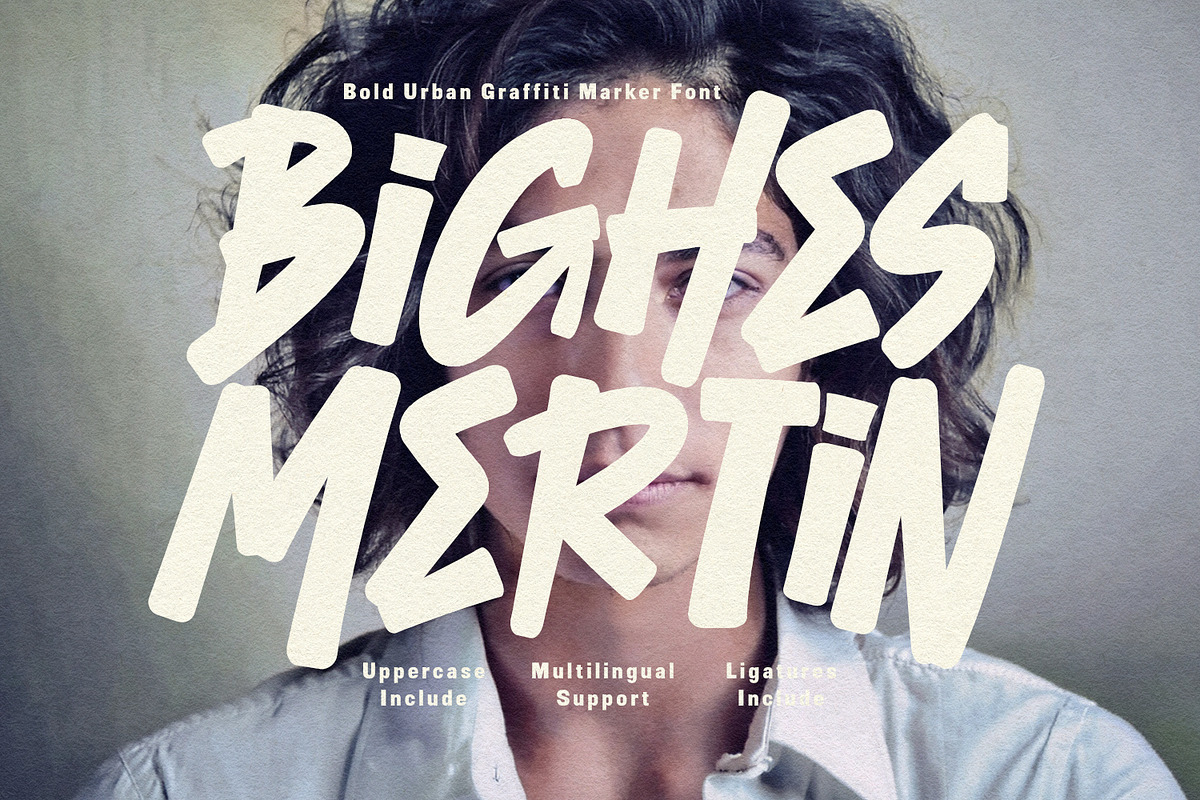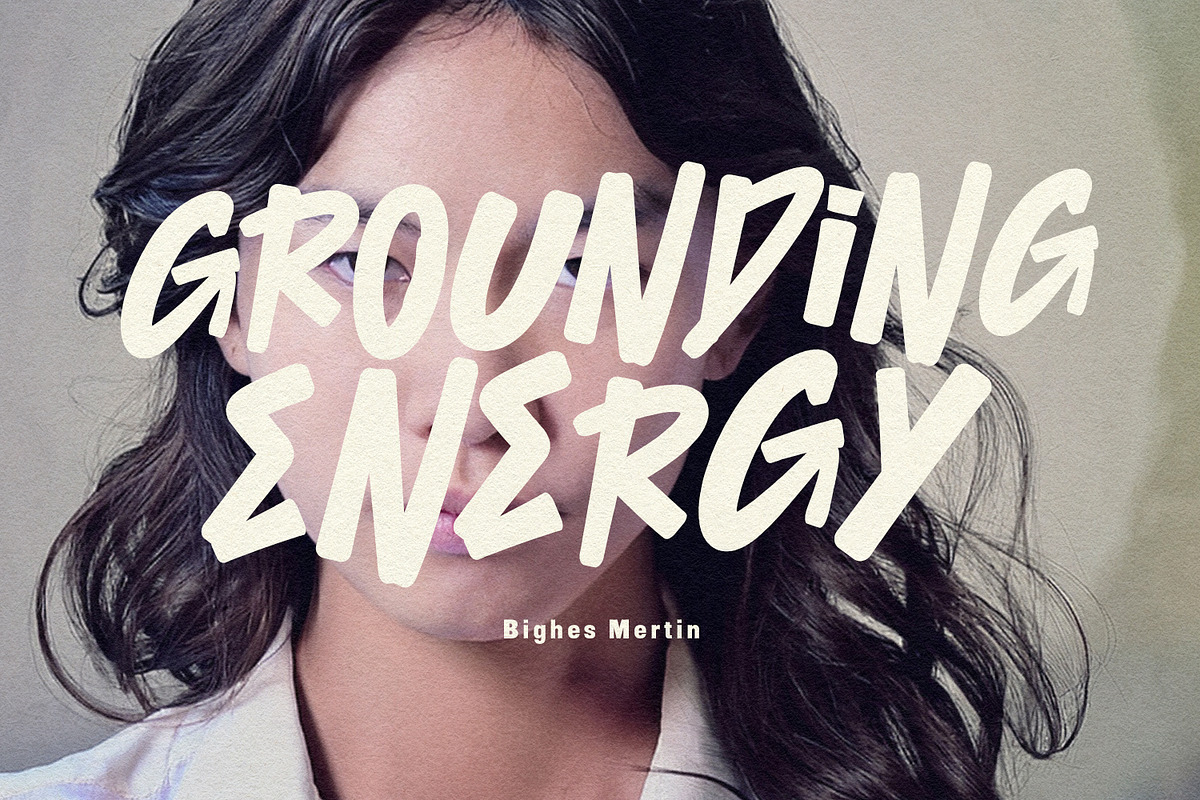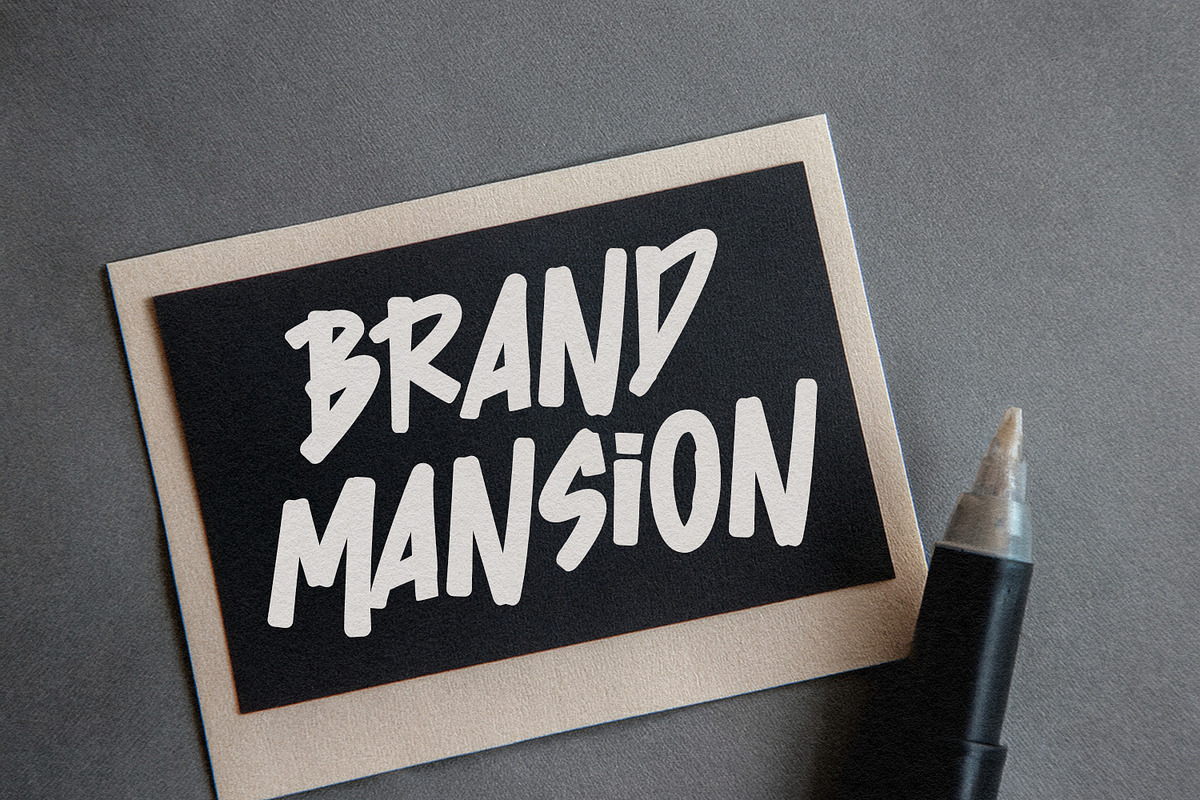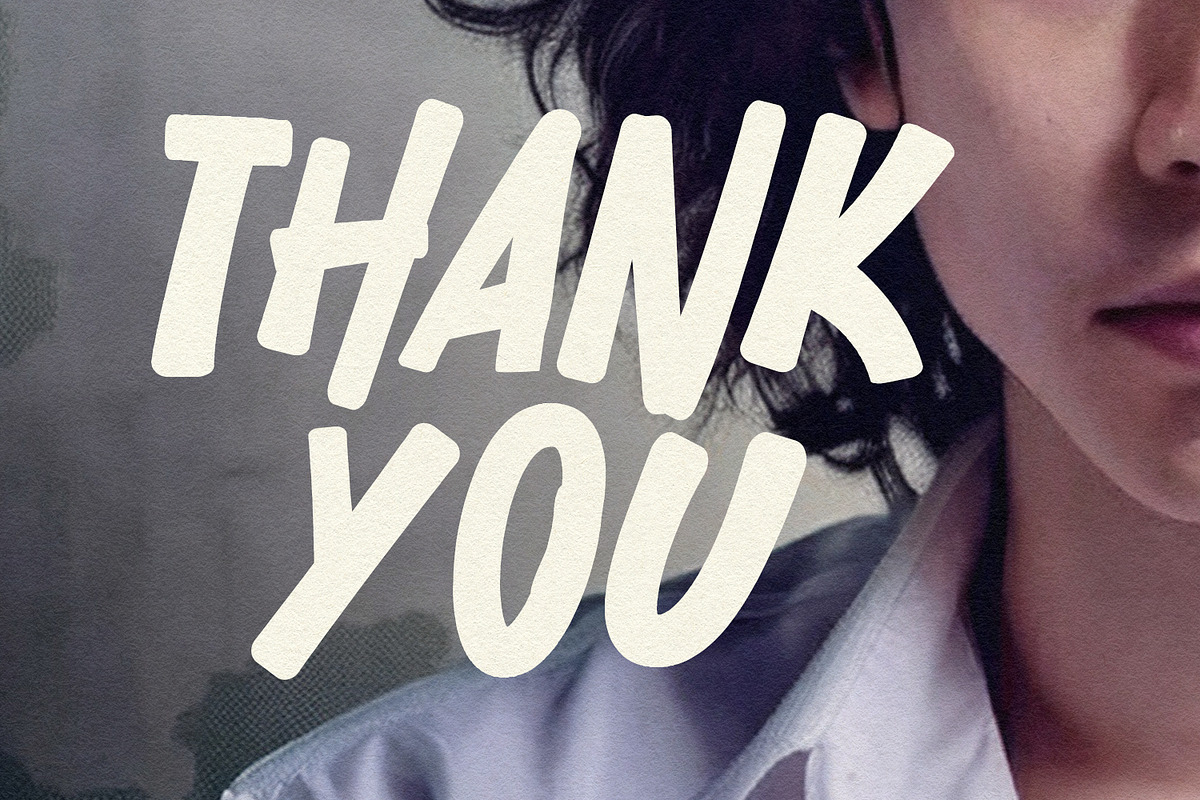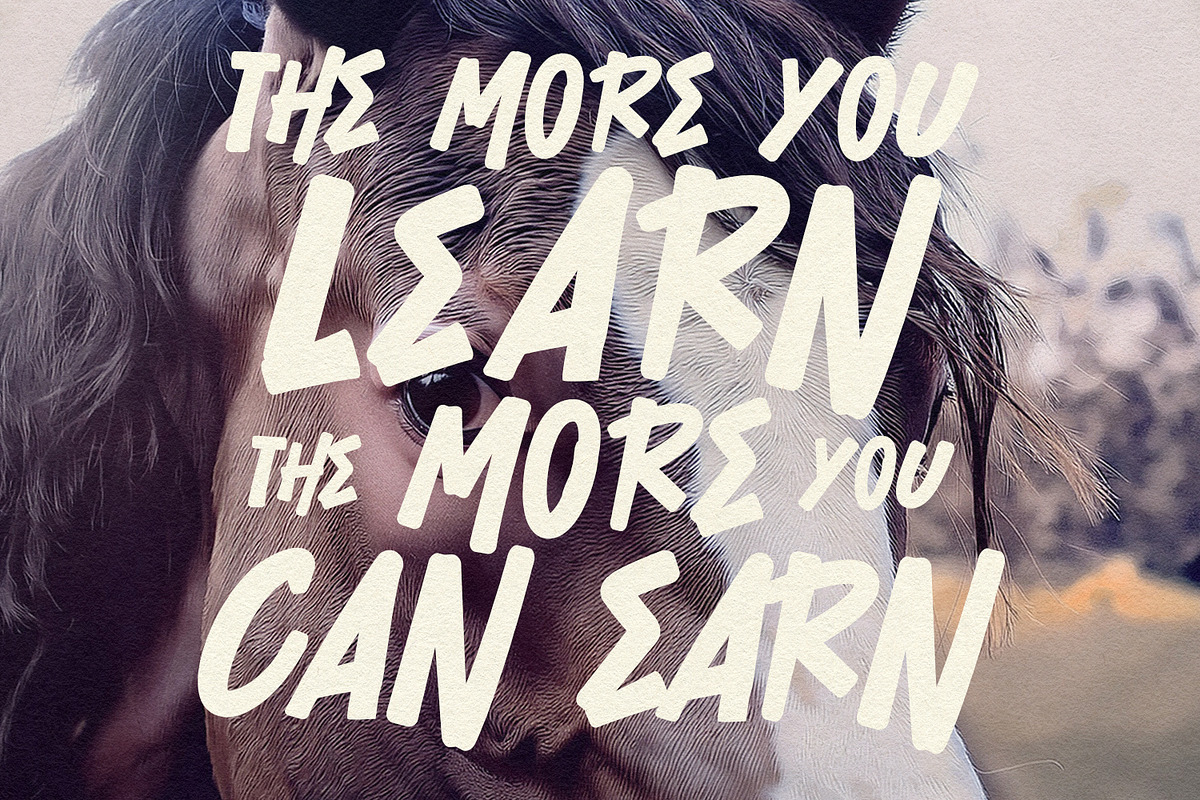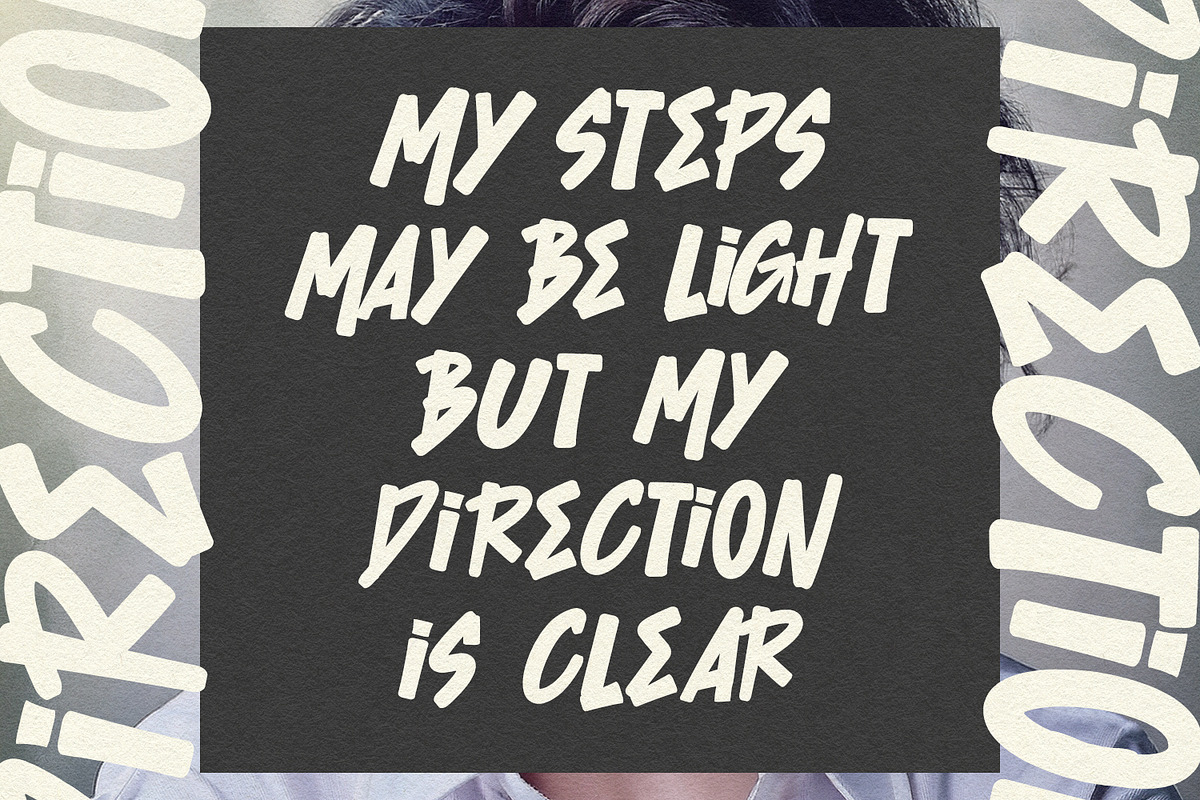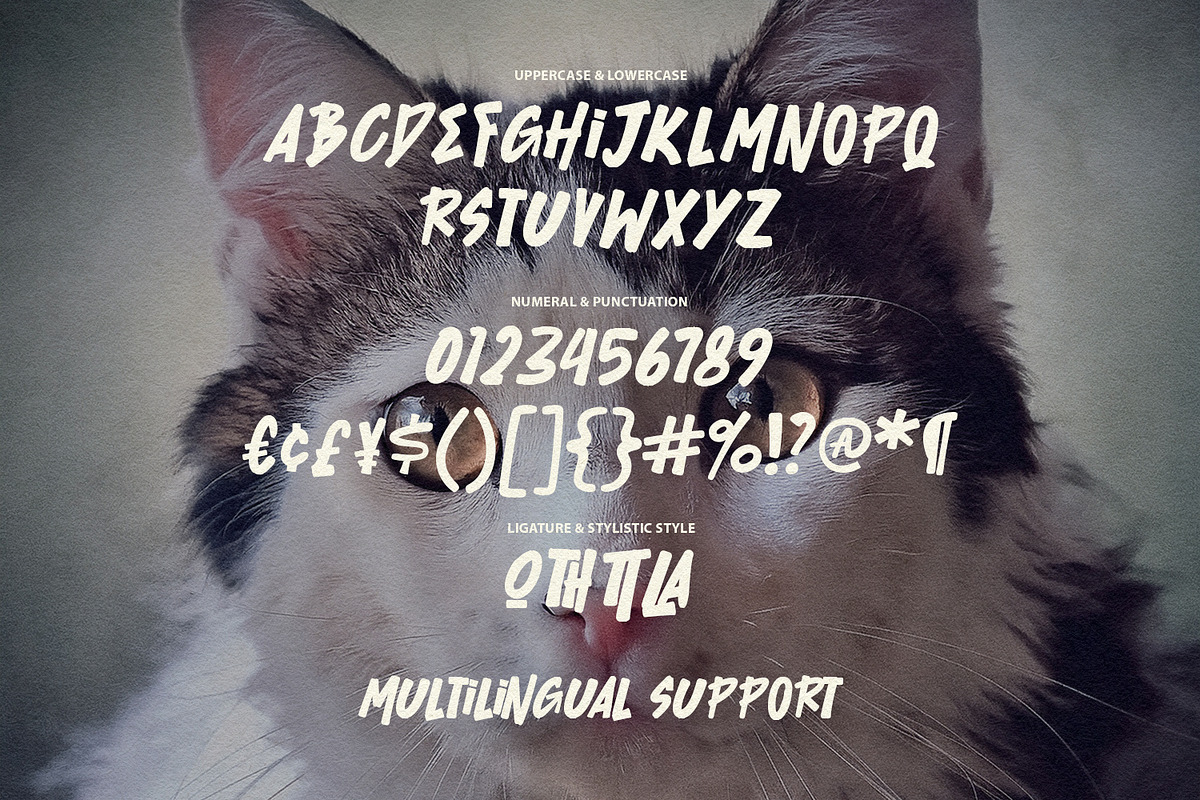
Bighes Mertin Urban Graffiti Marker
Bighes Mertin is a raw, energetic display font inspired by the spontaneous art of street culture. Featuring thick, confident strokes and a realistic marker texture, this font captures the gritty essence of urban graffiti. Its bold weight and edgy letterforms make it perfect for high-impact designs such as branding, hip-hop posters, music album covers, and skate culture graphics. With multilingual support and unique ligatures, Bighes Mertin offers the versatility needed to bring an authentic, "handmade" street vibe to any modern creative project.
- Ligatures and alternate for a natural handwriting flow